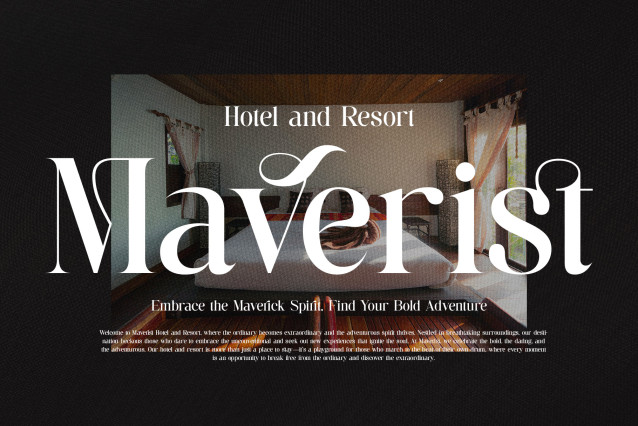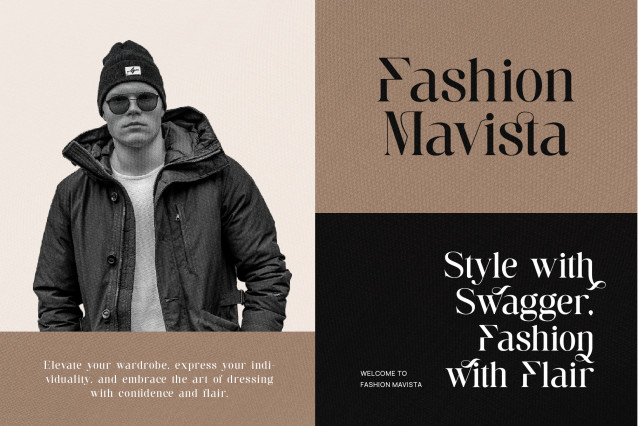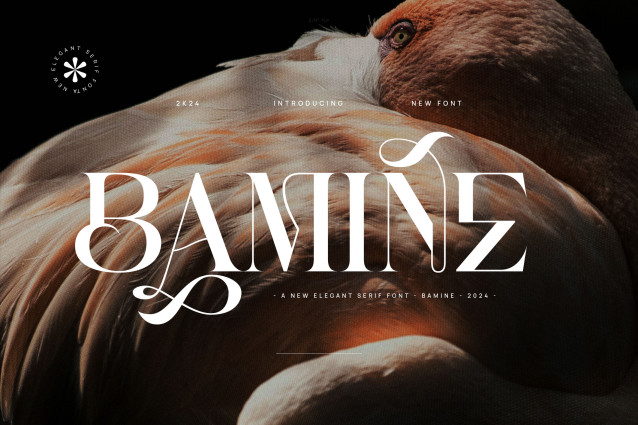
Bamine Font
Bamine Font, modern serif font with elegant style this is perfect for branding, logos, invitation, magazines, product packaging and more.